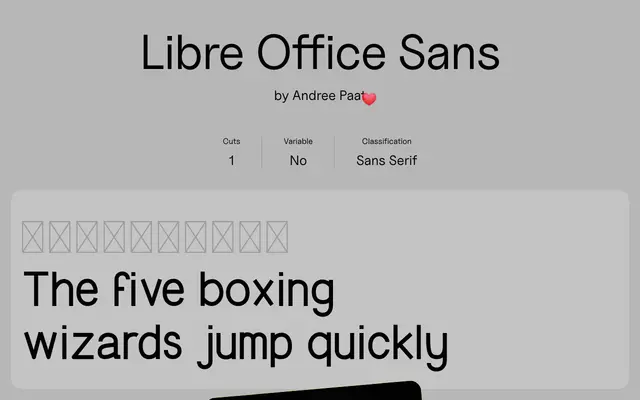
Libre Office Sans
A single-cut, free grotesque sans by Andree Paat, designed for general office and document use.
Available in one cut with no variable axis, this is a no-frills grotesque sans intended for everyday document work. Licensing is unspecified beyond 'free', so commercial use should be confirmed with the designer before deployment. Minimal scope and a single weight limit its flexibility for anything beyond basic text setting.
Classified as Sans Serif on the page; the name and single-cut structure suggest a straightforward grotesque intended for general office and document use.